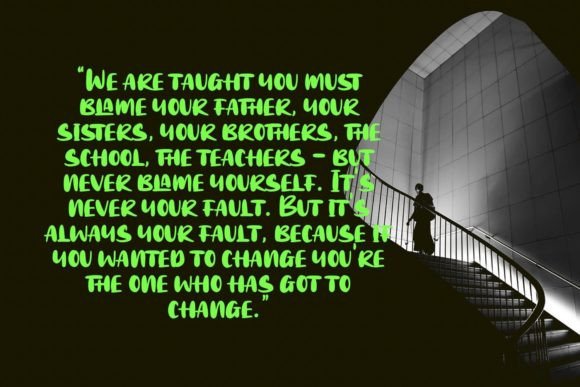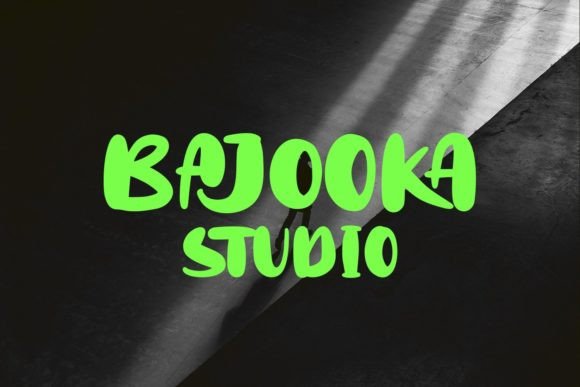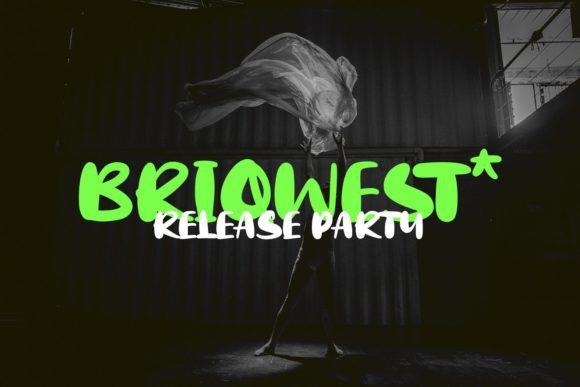
Introduction to Grulaks Font
Have you ever found yourself in the middle of a creative project, staring at a blank page, and suddenly, a spark of inspiration hits? For designers, this moment is like a breath of fresh air – it’s the moment when all the pieces come together, and the design starts to come alive! That’s exactly what the Grulaks Font can do for your next project.
As a unique freestyle handwritten display font, Grulaks Font is perfect for designers who want to add a touch of personality to their work. Its bold and assertive character is versatile enough to be used in a wide range of creative projects, from advertisements to social media graphics, and even wedding invitations. With its high quality design and transparent background, this font is a valuable resource for designers who want to elevate their work.
Key Features of Grulaks Font
- High-quality typography with a unique, modern design aesthetic, ideal for creative projects.
- Comes in a single weight, with precise control over font size and resolution, allowing for crisp and clear display at various scales.
- Perfect for use in a variety of creative projects, including graphic design, digital art, and editorial content.
- Designed to be highly legible, with clear lines and balanced proportions, ensuring that your message is conveyed effectively.
Honest Review: Grulaks Font
I recently came across the Grulaks Font and was excited to give it a try in my latest creative project. One of the first things I noticed was its high quality, which immediately caught my attention. The font is clean and modern, making it a great addition to any design.
- High quality and clean design
- Transparent background for versatility
- Great for creative projects and design resources
- May not be suitable for formal or traditional designs
- Limited font sizes and styles available
Overall, I’m really impressed with the Grulaks Font and would definitely recommend it to designers looking for a high-quality, free font. While it may not be perfect for every project, it’s a great addition to any design resource collection.
Tips for Getting the Most Out of Grulaks Font
Experiment with different font sizes, colors, and styles to create a unique visual identity for your project. Combine the Grulaks Font with other design elements to achieve a cohesive look.
Common Use Cases for Grulaks Font
The Grulaks Font is suitable for a wide range of applications, including branding, advertising, and editorial design. Its modern and elegant appearance makes it perfect for creative projects requiring a touch of sophistication.